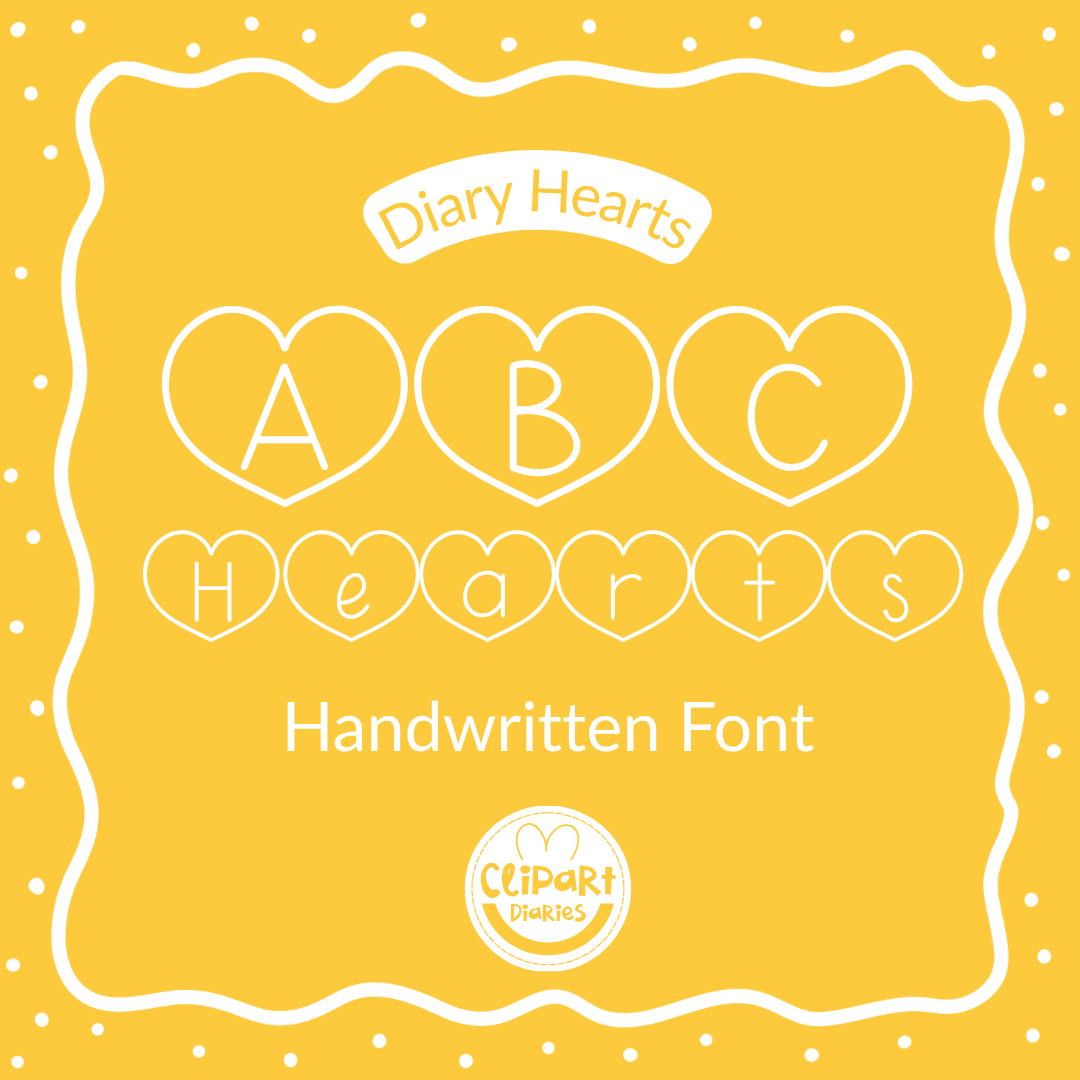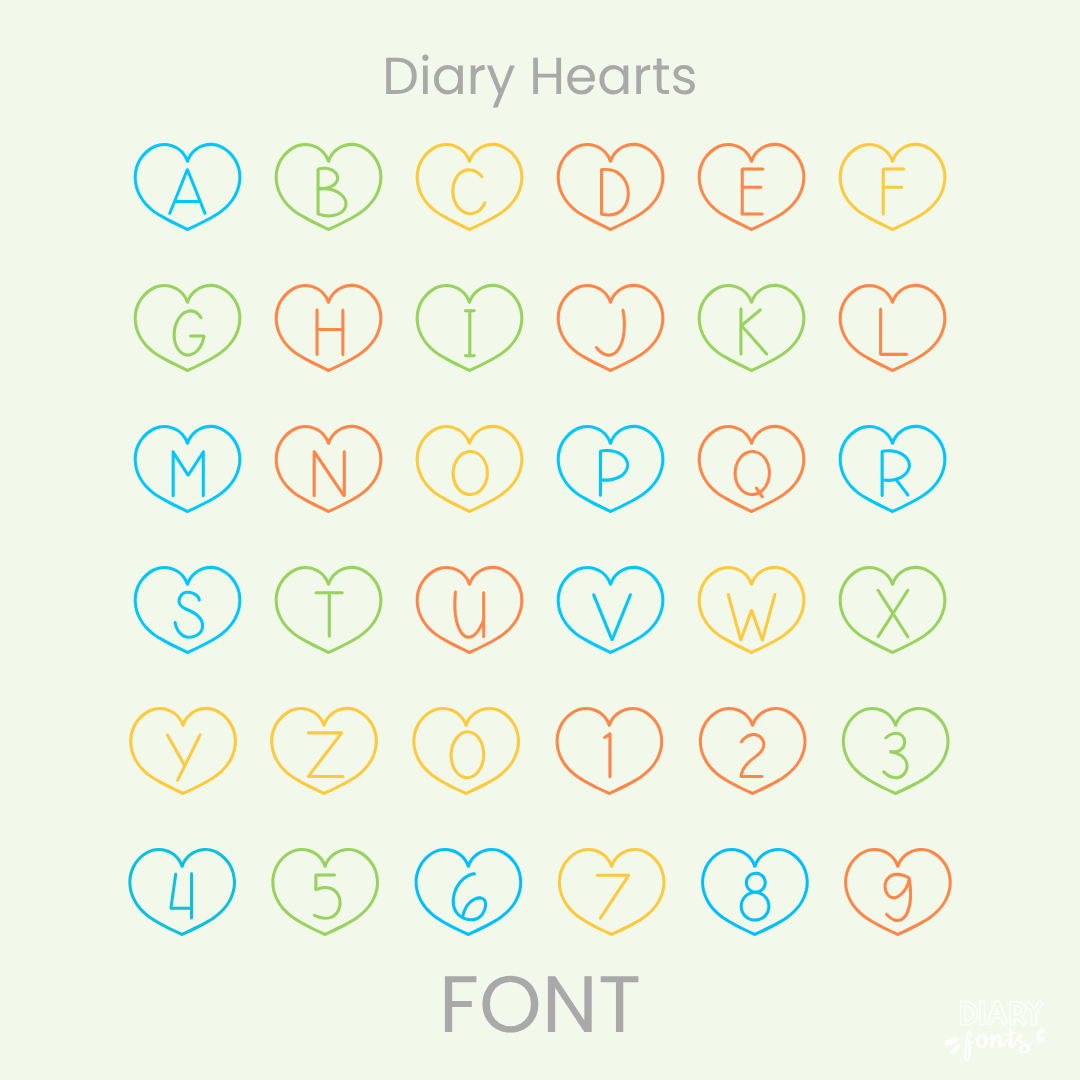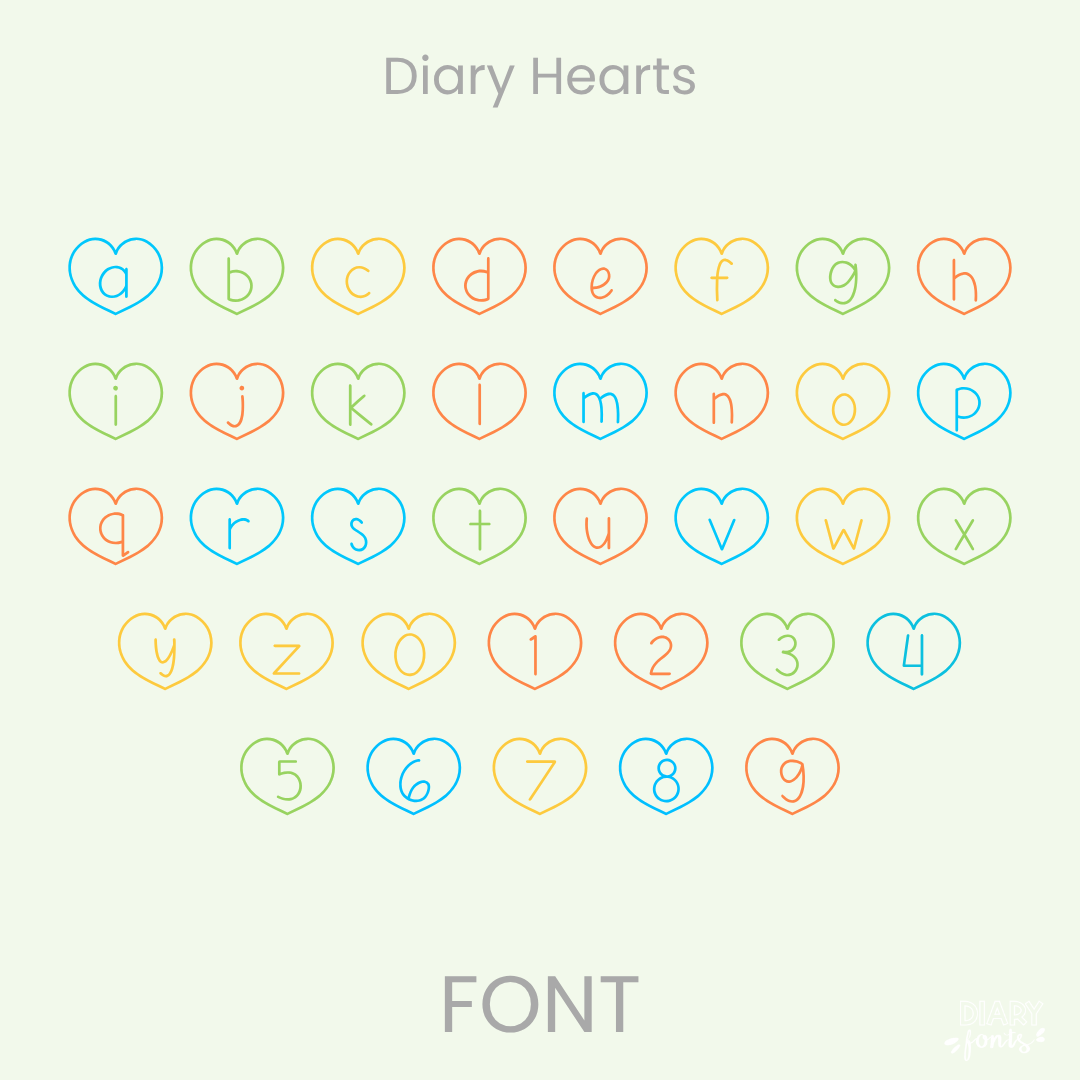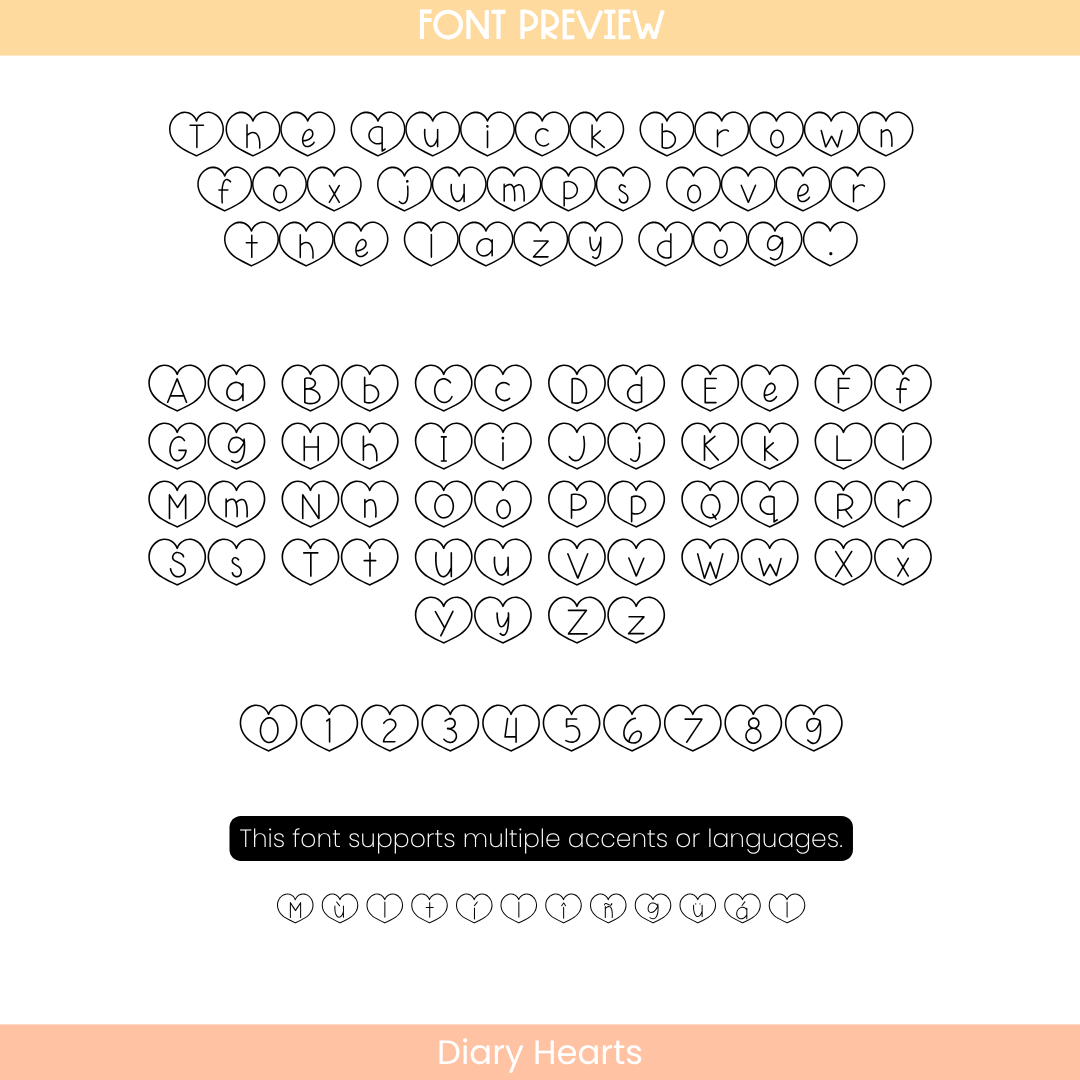
If you want to give your projects a cheerful and welcoming feel, Diary Hearts is an excellent choice. It features playful, hand-drawn character styles where lowercase and uppercase letters are subtly adorned with tiny hearts and affectionate details. While keeping its uniquely artistic and decorative personality, the core letterforms remain clear, upright, and highly legible for students. This makes it an eye-catching option for seasonal Valentine’s Day activities, Mother’s Day cards, classroom bulletin boards, morning meeting slides, and creative school projects. The font includes a full set of uppercase and lowercase letters, numbers, and multiple accents to support different languages. It is ready for use in Canva, MS Office, and Adobe Apps, and it works flawlessly on the iPad with GoodNotes and Procreate. Whether for personal classroom designs or commercial teacher resources, this font adds a soft, approachable, and loving aesthetic to your work.